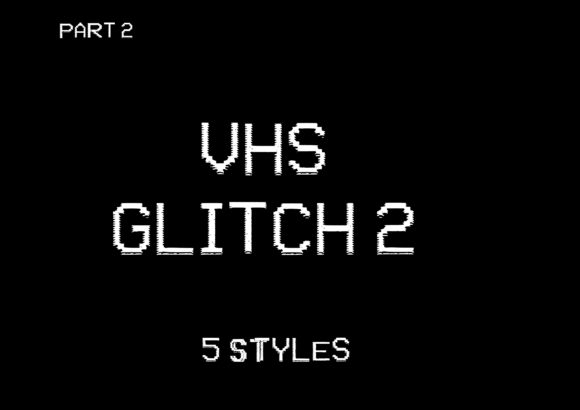
Journey back in time with VHS Glitch 2 Family Font - an electrifying display font that will transport you to the golden era of analog artistry! Crafted with meticulous precision by the masterminds at GraphicsBam Fonts, VHS Glitch 2 is a visual masterpiece, capturing the raw essence of glitch aesthetics and breathing new life into your creative projects.
Indulge in a symphony of five captivating styles, each boasting its own distinct analog distortion. From the pulsating pixels of "VHS Glitch 2 Regular" to the distorted elegance of "VHS Glitch 2 Rough," this font family is a treasure trove of digital artistry. Unleash your creativity and embrace the nostalgic charm of retro gaming, hacker culture, and vintage video productions.
Immerse yourself in the nostalgic allure of VHS Glitch 2, and let your imagination run wild. Whether you're crafting eye-catching logos, captivating posters, or mesmerizing social media graphics, this font will elevate your designs to new heights. Its versatility knows no bounds; experiment with different styles and create captivating headlines, stunning flyers, and awe-inspiring invitations that leave a lasting impression.
VHS Glitch 2 is more than just a font; it's a ticket to a bygone era, a gateway to the world of pixelated memories and digital dreams. Embrace the glitch, revel in the nostalgia, and let your creations shine with the timeless beauty of VHS Glitch 2.